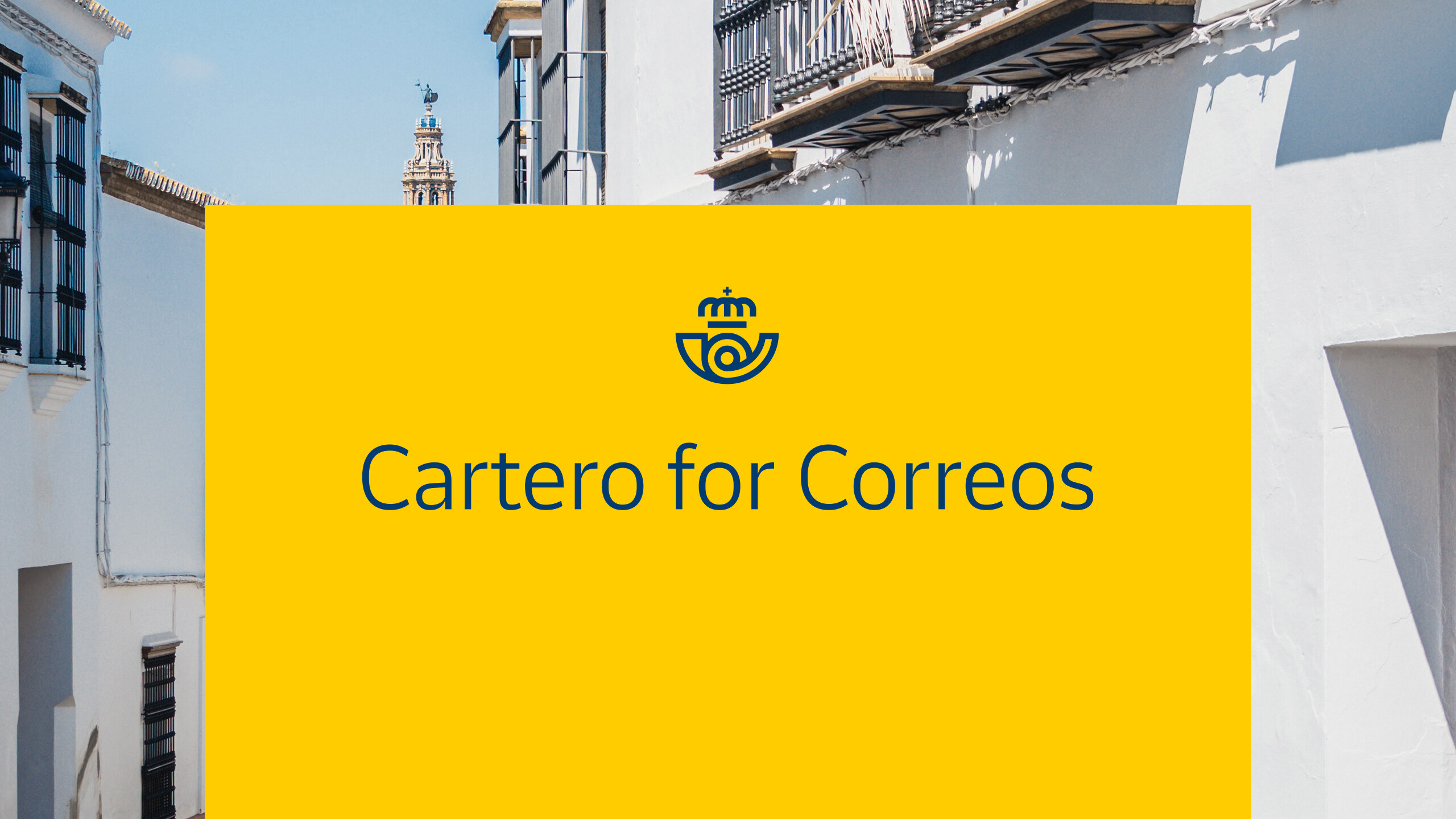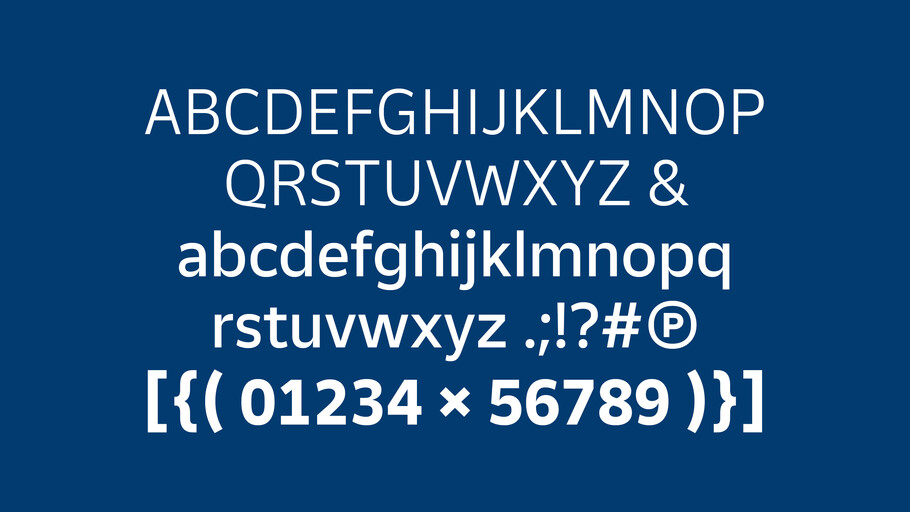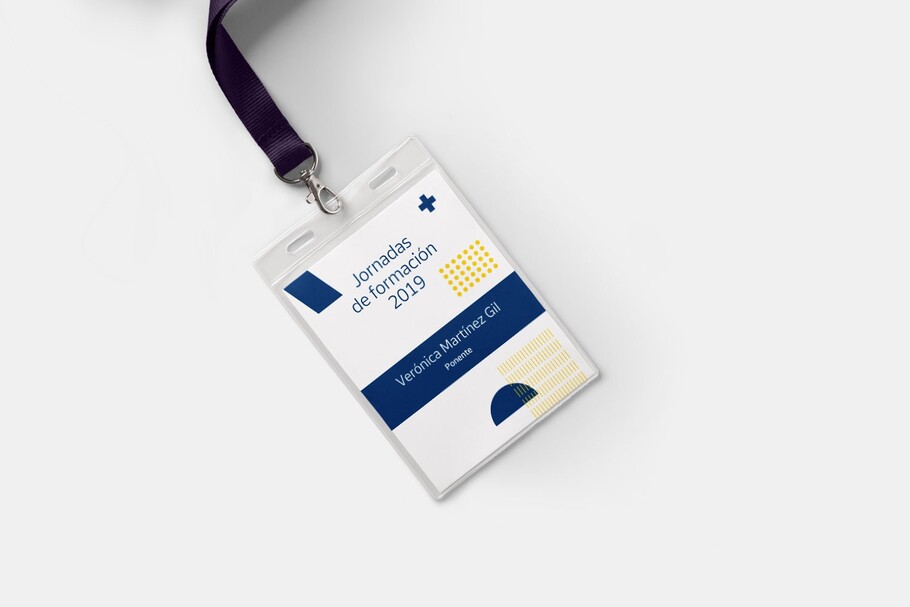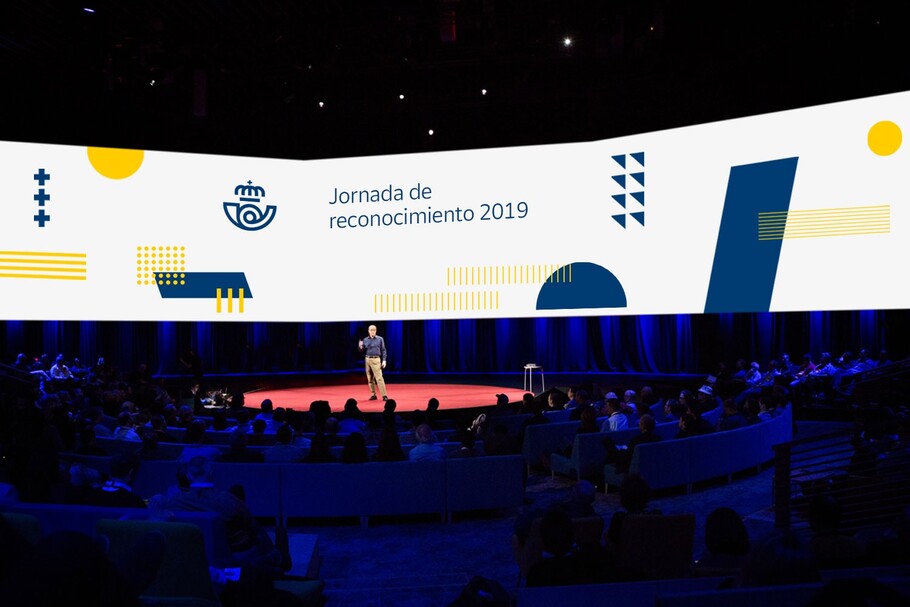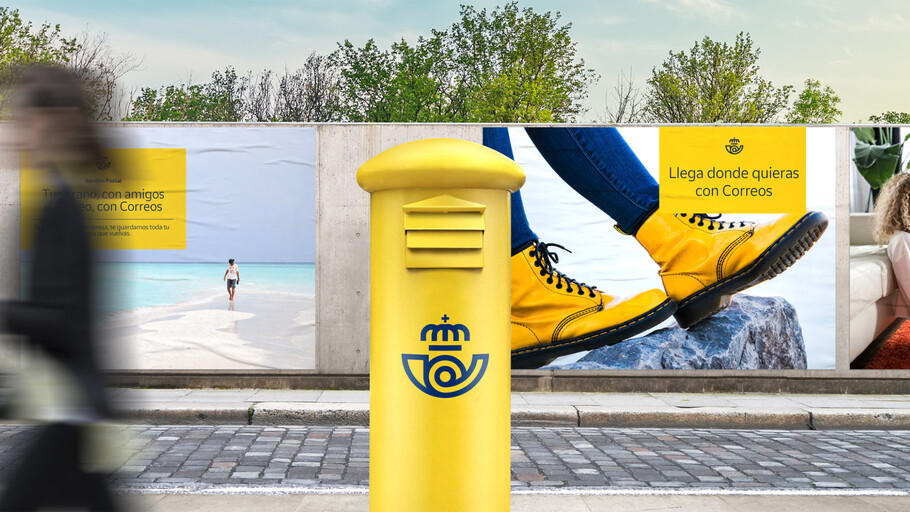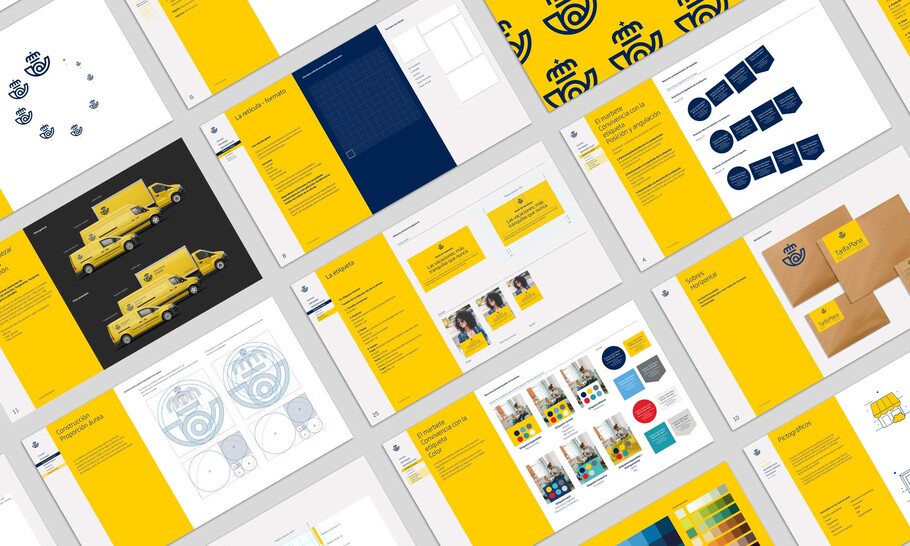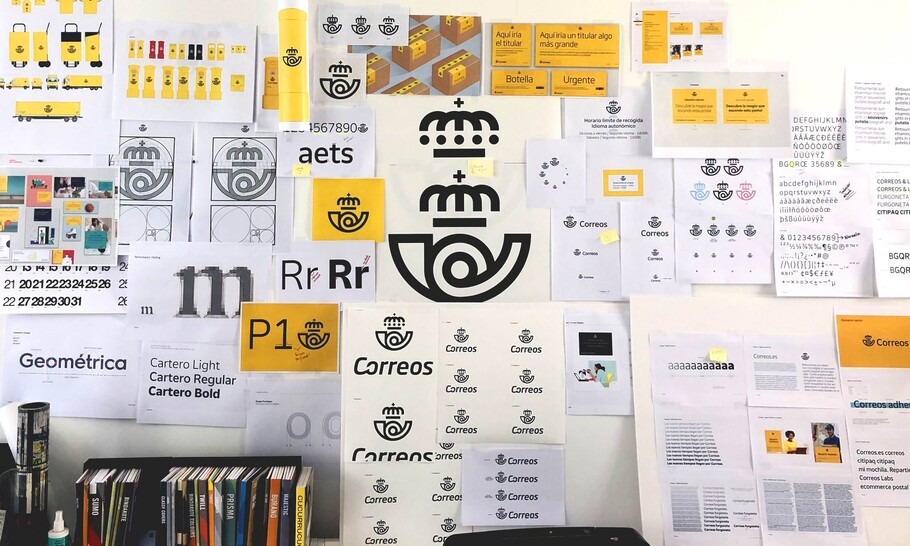
Correos, national postal service, is a brand of more than 350 years. Together with branding agency, Summa, we designed a new font exclusively for Correos, named Cartero (Postman) in honour of the emblematic professionals that has shaped the company since its early days.
Correos, national postal service, is a brand with more than 350 years. Witness of all the changes that spanish society has undergone, it has evolved to adapt to them and to technological advances by launching new courier and parcel services. However, society felt Correos as an endearing brand, traditional but not at all innovative. That's why Correos needed to adapt its identity to reflect its own reality: a company that has been innovating in services since 1756 and continues to do so.
To embrace its essence and communicate it in a more contemporary and direct way to its audience, Correos counted on Summa to develop the brand project. Our task was to update the brand and position Correos as another player in the current industry, leaving behind the times where the brand expressed itself only in its fleet, facades and mailboxes, and covering every outcome across physical and digital media.
A typeface for Correos.
An important element in the renewal of the visual identity for Correos is its new typeface. Together with Monotype, we designed a new font exclusively for Correos that we have named Cartero (Postman) in honour of these emblematic professionals that has shaped the company since its early days.
The new typeface brings elegance and modernity, and reinforces the essential attributes of the new Correos. Its simplicity ensures the proper functioning of it in all types of messages (from corporate to commercial, from digital to traditional environments) and at the same time will make it last over time without losing relevance.